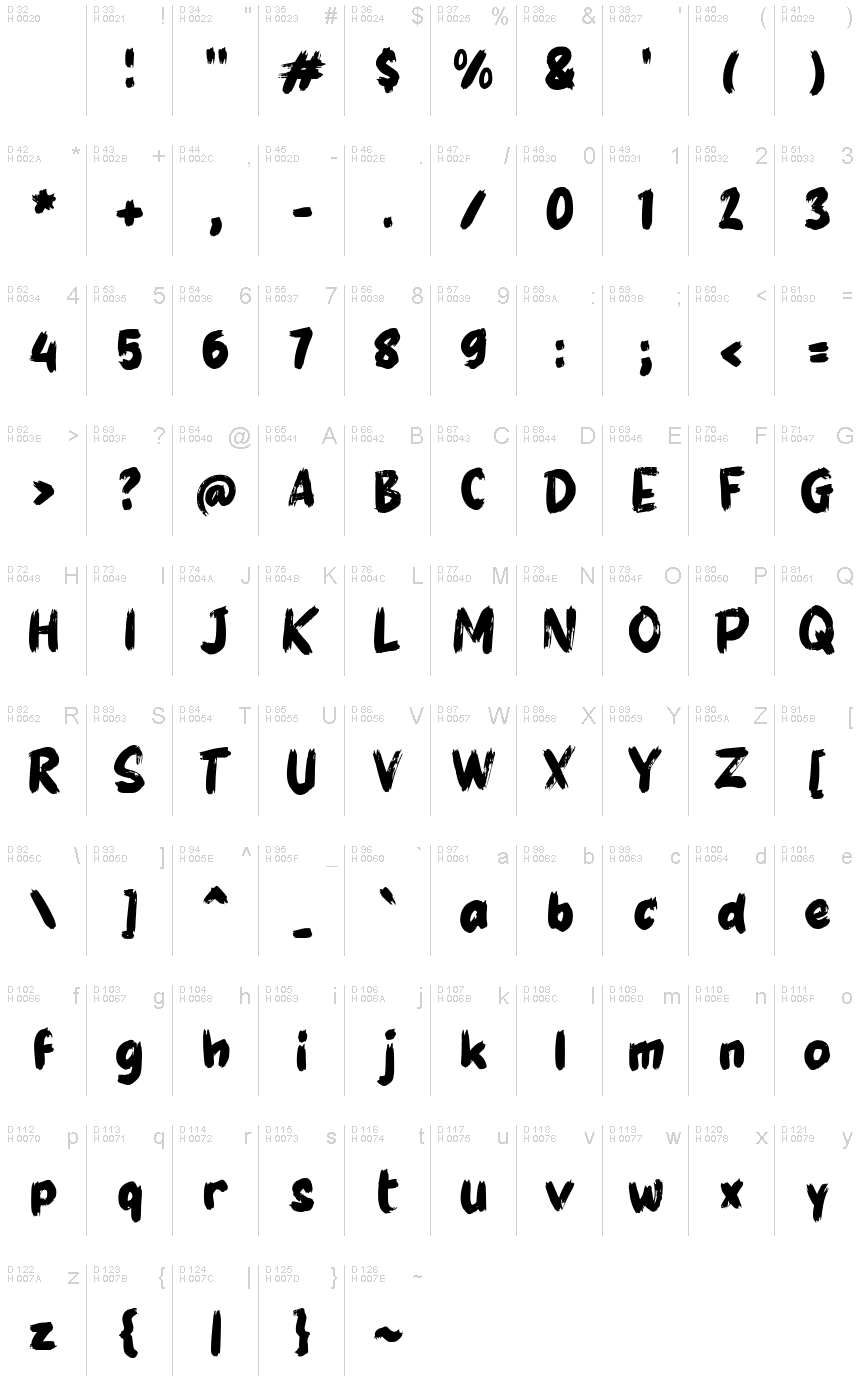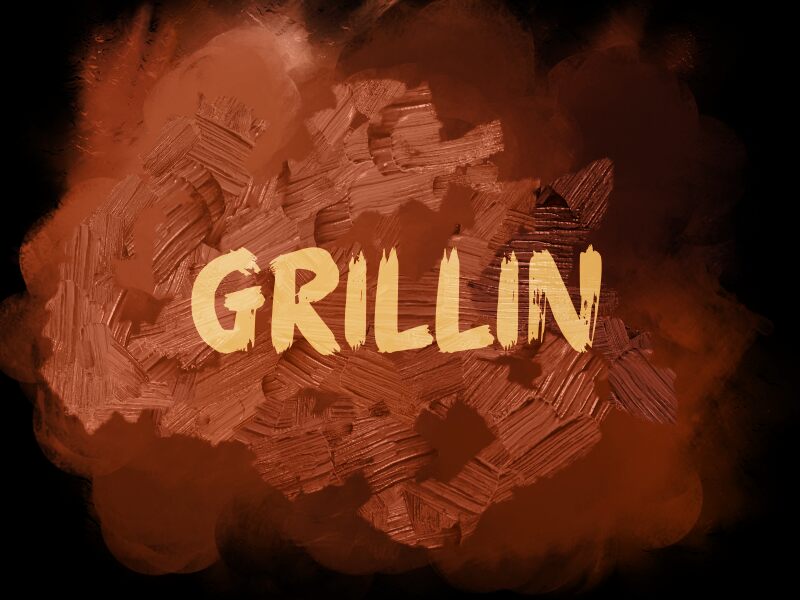
GRILLIN
Grillin, a captivating brush font crafted by the talented designer wep, exudes a bold and expressive flair. This dynamic typeface boasts striking, organic strokes that effortlessly convey a sense of movement and energy. The bold weight and distinctive brushstroke-inspired forms lend Grillin a unique character, making it a standout choice for a variety of design projects.
The versatility of Grillin shines through in its ability to elevate various design contexts, from eye-catching headlines and impactful logos to dynamic branding materials and captivating packaging. Its bold, confident aesthetic seamlessly translates across mediums, making it a versatile tool for designers seeking to add a touch of raw, authentic style to their creations.